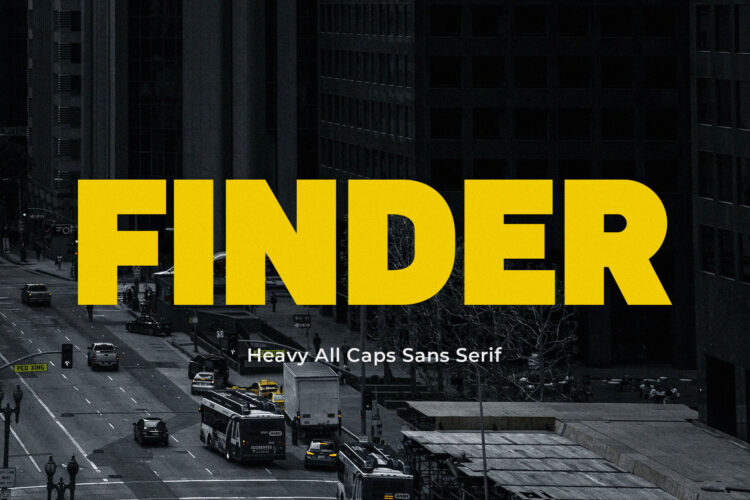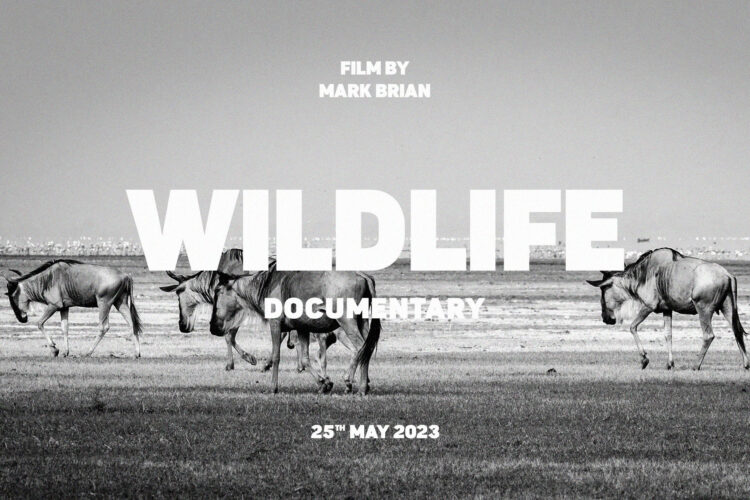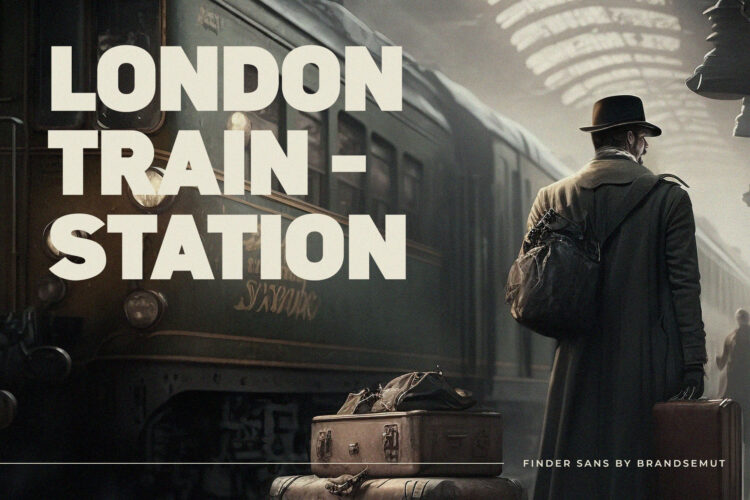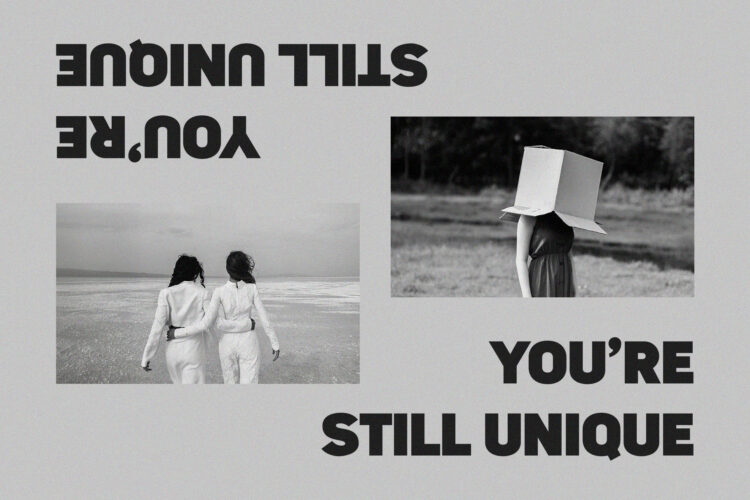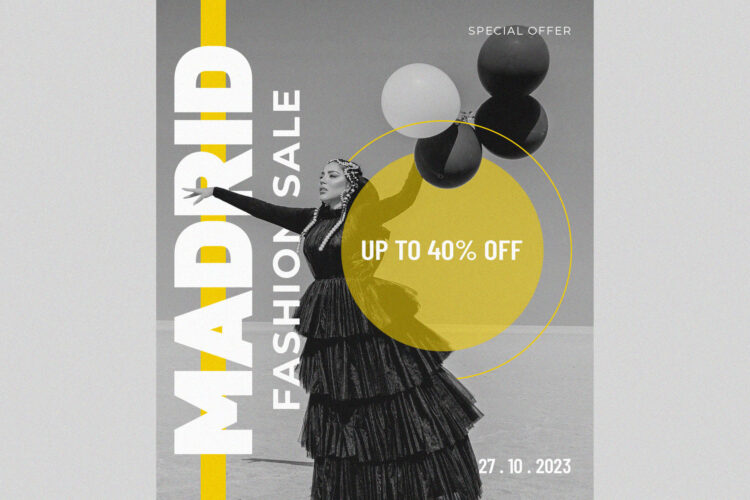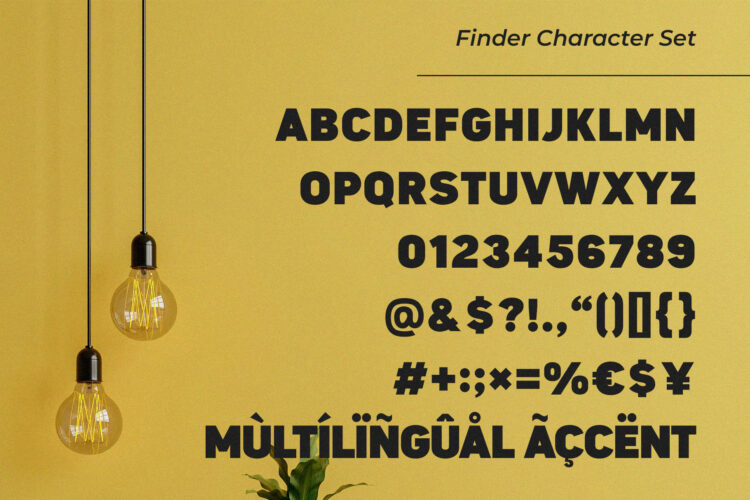
Introducing Finder Heavy All Caps Sans Serif.
Finder is a modern and classy typeface, best used as a display for headings, logos, branding, magazines, product packaging and invitations. Finder come with clean lines and smooth curves give any project an extra touch of class.